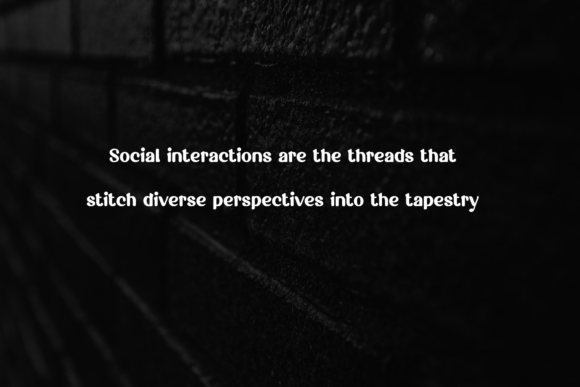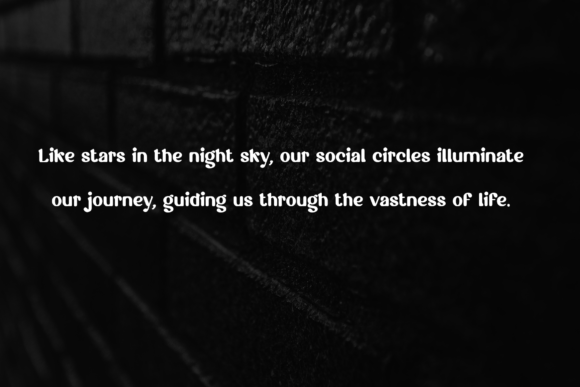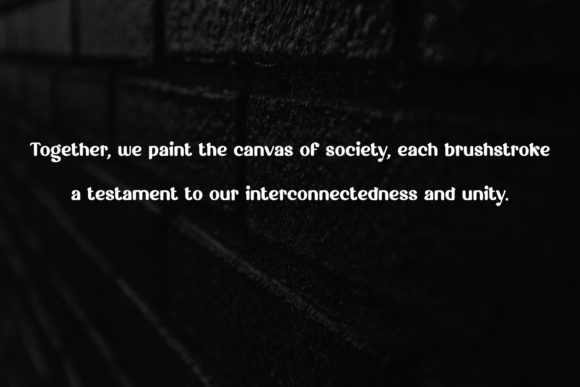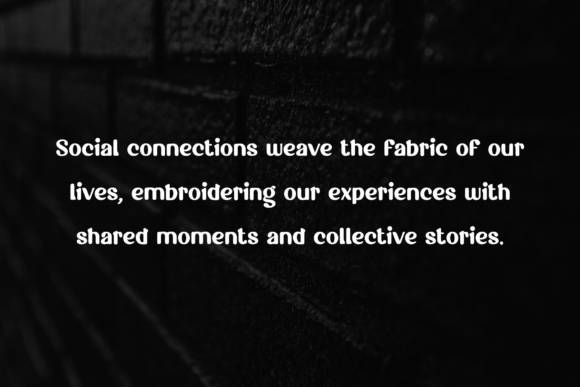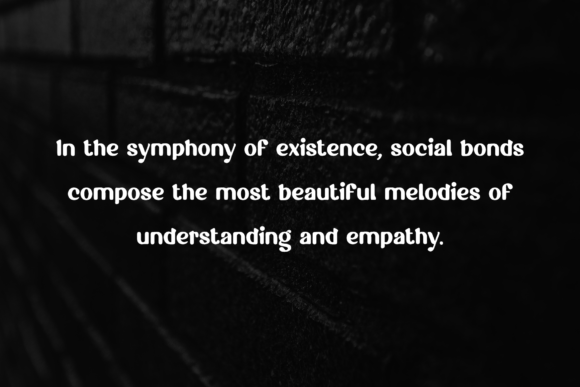
Introducing Caller Font: The Embodiment of Handwritten Authenticity
In the world of typography, few fonts capture the essence of handwritten authenticity as beautifully as Caller Font. This stunning font is crafted with a blend of flowing strokes and personal flair, making it perfect for designers and crafters looking to add a personal touch to their projects. With its unique and individualized style, Caller Font brings an organic and genuine handwritten feel that captivates and resonates with its heartfelt appeal.
The Charm of Handwritten Typography
Handwritten typography has always been a favorite among designers and crafters. There’s something special about the imperfections and uniqueness of handwritten letters that makes them stand out from more traditional fonts. Caller Font takes this charm to the next level, with each letter carrying a personalized touch that mirrors the warmth and personal connection of pen-to-paper expression.
What Makes Caller Font Special?
So, what sets Caller Font apart from other handwritten fonts? Here are a few key features that make it a standout:
- Flowing Strokes: Caller Font features smooth, flowing strokes that give it a natural and effortless feel.
- Personal Flair: Each letter has a unique, personalized touch that makes it feel like it was written just for you.
- Individualized Letters: No two letters are exactly alike, giving Caller Font a delightfully human feel.
- Warmth and Connection: The font exudes a sense of warmth and personal connection, making it perfect for projects where you want to convey a sense of personality.
Caller Font is a versatile font that’s perfect for a wide range of design and crafting projects. Here are a few ideas to get you started:
- Invitations: Add a personal touch to your invitations with Caller Font, making them feel like they were written just for the recipient.
- Design Projects: Use Caller Font to add a unique and personalized feel to your design projects, from brochures to posters.
- Crafting Projects: Caller Font is perfect for crafters who want to add a personal touch to their projects, from handmade cards to scrapbooking.
- Social Media Graphics: Use Caller Font to create eye-catching social media graphics that stand out from the crowd.
Tips for Using Caller Font
Here are a few tips for getting the most out of Caller Font:
- Use it sparingly: While Caller Font is beautiful, it can be overwhelming if used too much. Use it sparingly to add a touch of personality to your projects.
- Pair it with other fonts: Caller Font pairs beautifully with other fonts, so don’t be afraid to experiment with different combinations.
- Experiment with colors: Caller Font looks great in a variety of colors, so don’t be afraid to experiment and find the perfect hue for your project.
In conclusion, Caller Font is a unique and beautiful font that’s perfect for designers and crafters looking to add a personal touch to their projects. With its flowing strokes, personal flair, and individualized letters, Caller Font brings an organic and genuine handwritten feel that’s sure to captivate and resonate with its heartfelt appeal. Whether you’re working on a design project, crafting a handmade card, or creating social media graphics, Caller Font is the perfect choice.